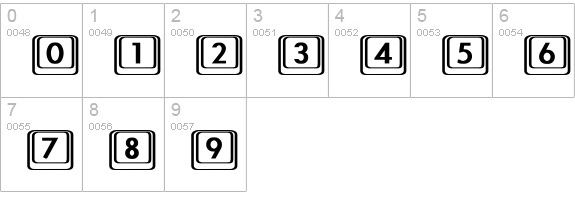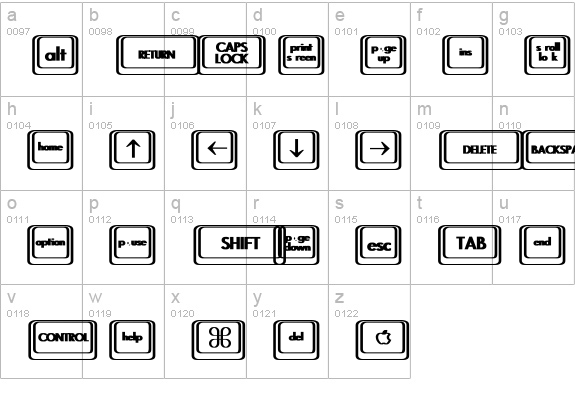
Keyboard KeysBT Bold is a striking and eye-catching font that will surely make your designs and projects stand out. With its bold and clean lines, this font exudes confidence and professionalism. Whether you're creating logos, banners, or website headers, Keyboard KeysBT Bold is the perfect choice to make a strong visual impact. This font features a unique and modern design, with each letter carefully crafted to perfection. The boldness of the strokes adds a sense of power and strength to your text, making it impossible to ignore. It is the ideal font for any project that requires a strong and impactful message. What sets Keyboard KeysBT Bold apart is that it is freely available to download at FontsMarket.com. This means that you can enjoy the benefits of this outstanding font without any cost. Whether you're a professional designer or a student working on a project, you can now access this font and add a touch of boldness to your work. Keyboard KeysBT Bold is compatible with various design software, making it easy to incorporate into your projects. With its versatility, it can be used in various industries, such as advertising, branding, and packaging. The bold and clean aesthetic of this font ensures that your text will be easily readable and visually appealing. So why wait? Download Keyboard KeysBT Bold for free at FontsMarket.com and elevate your designs to new heights. Stand out from the crowd and make a lasting impression with this exceptional font. With its bold and modern design, Keyboard KeysBT Bold is a must-have for any designer looking to make a statement.